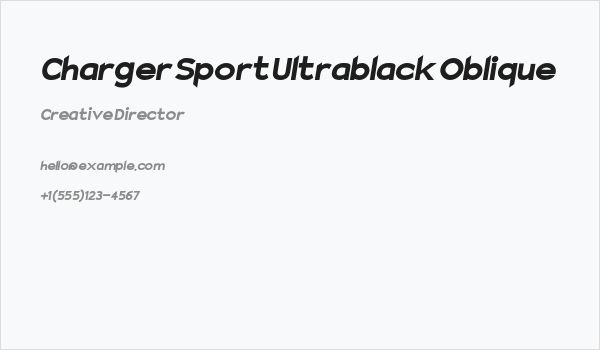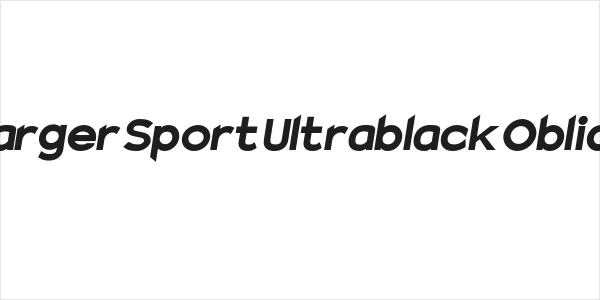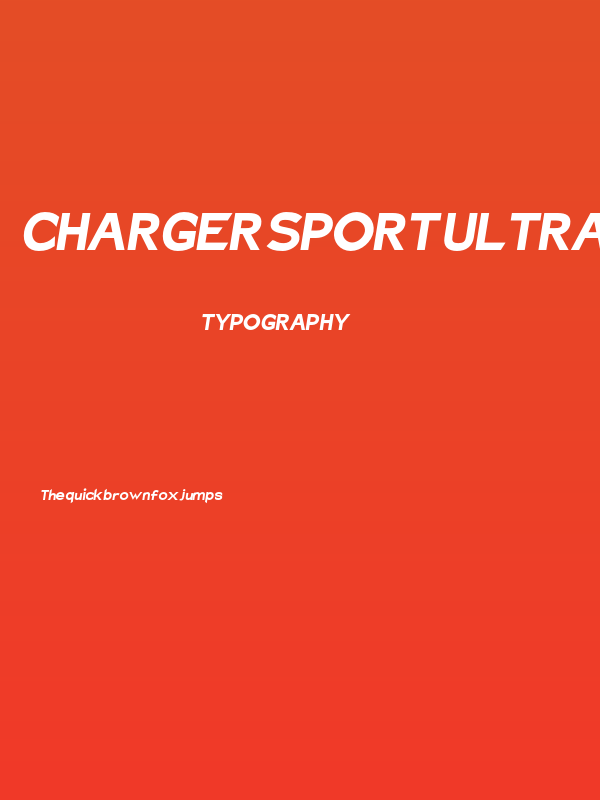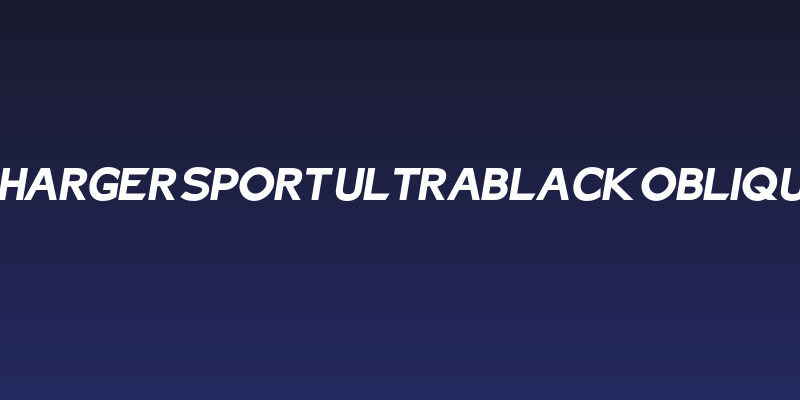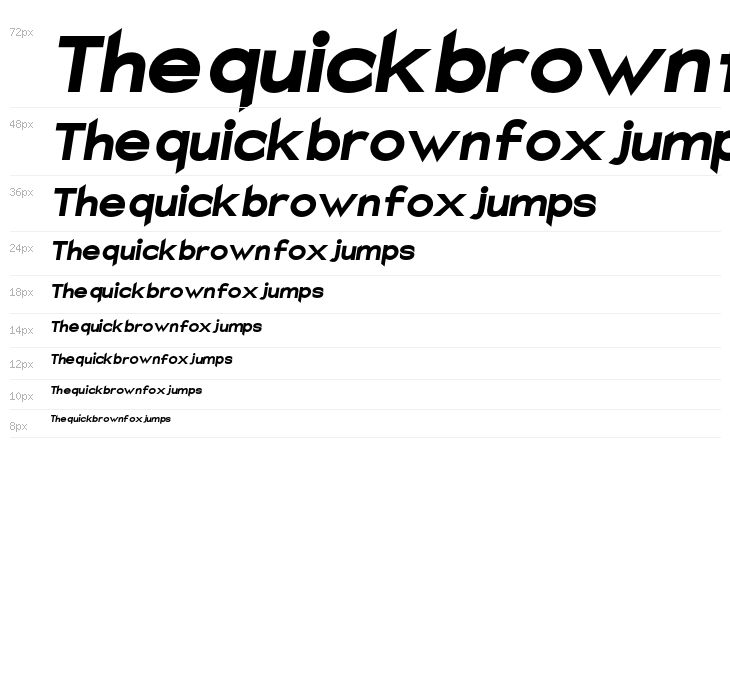
Charger Sport Ultrablack Oblique Font
Charger Sport Ultrablack Oblique Description
This font exudes a dynamic and sporty vibe with its ultrablack weight and oblique style. The bold and slanted characters create a sense of movement and energy, making it ideal for projects that require a strong visual impact. The uppercase letters are particularly striking, with their thick strokes and sharp angles, while the lowercase letters maintain a consistent style that complements the overall design. The numerals are robust and clear, ensuring readability. Special characters are well-integrated, maintaining the font's cohesive appearance.
| Proposed Projects | Ideal for sports branding, dynamic posters, and energetic advertising campaigns. |